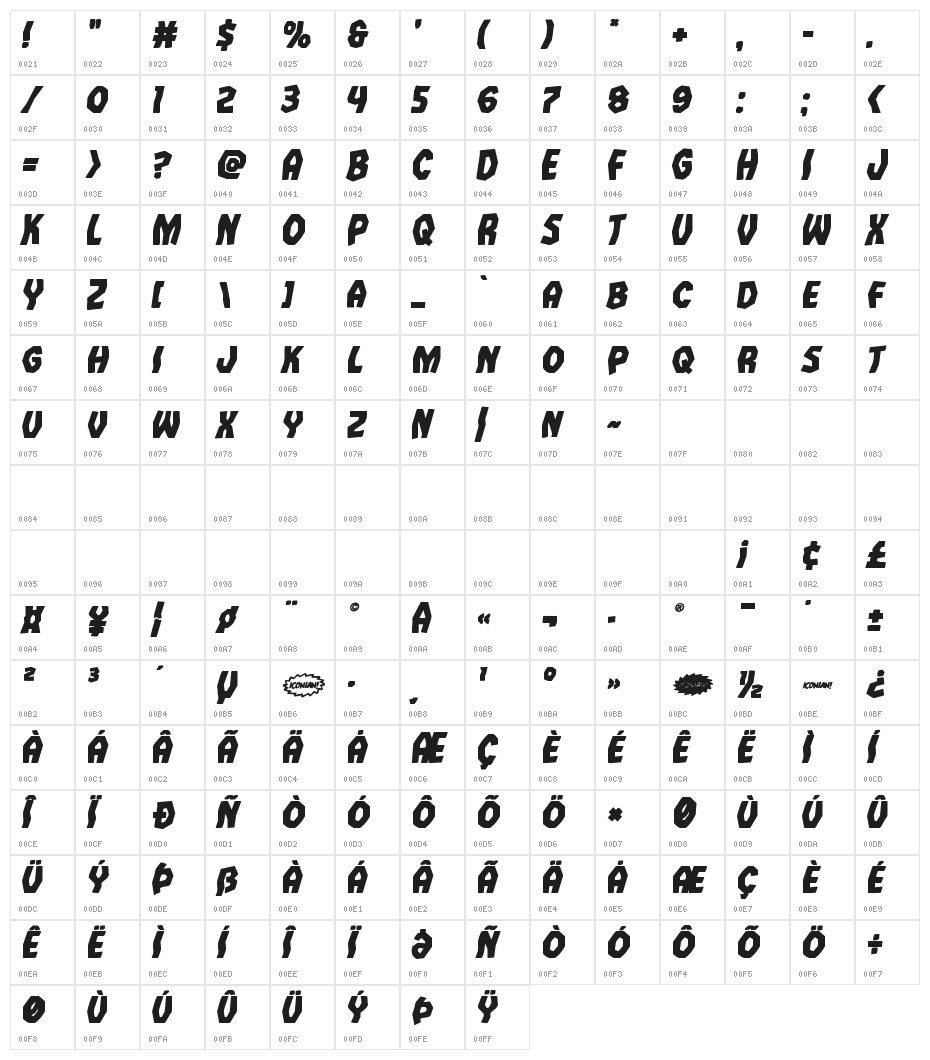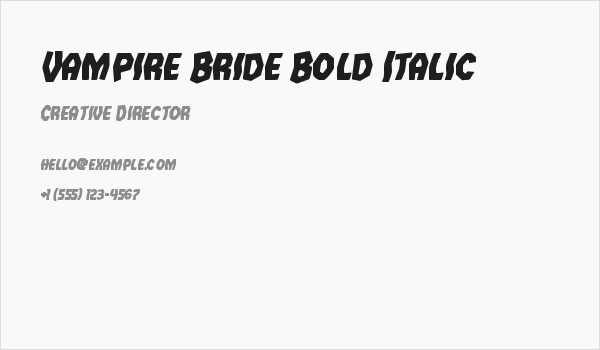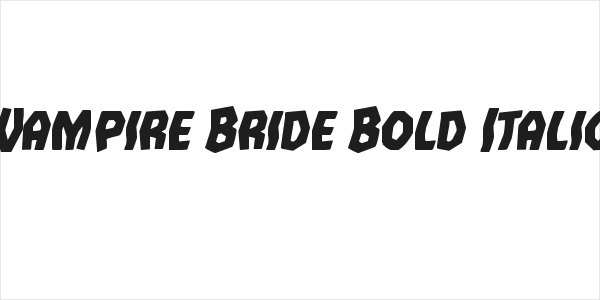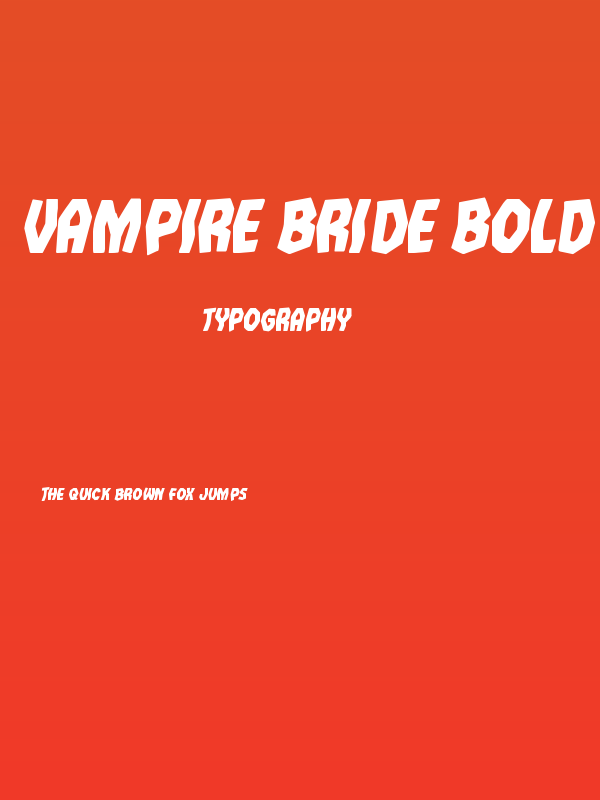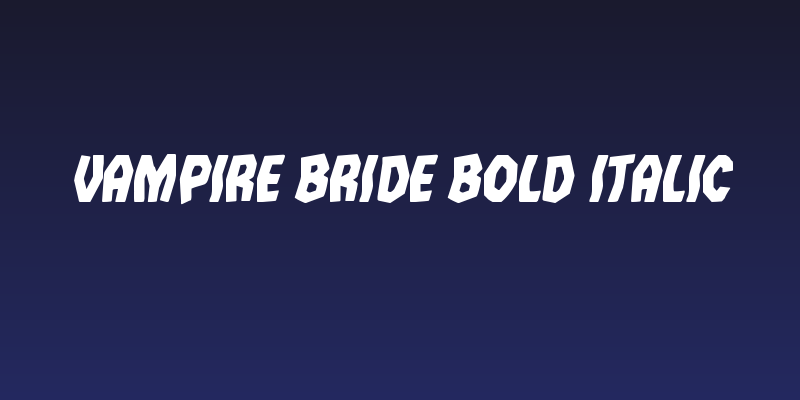
Vampire Bride Bold Italic Font
Vampire Bride Bold Italic Description
This font features a bold and italicized style with a distinctive, edgy appearance. The characters are sharply angled and have a slightly irregular form, giving them a dynamic and energetic feel. The uppercase and lowercase letters maintain a consistent weight, contributing to a cohesive look. The numbers and special characters follow the same bold and italicized design, ensuring uniformity across all elements. The font's unique style makes it suitable for projects that require a strong visual impact.
| Proposed Projects | Ideal for horror-themed posters, Halloween invitations, video game titles, and edgy branding projects. |